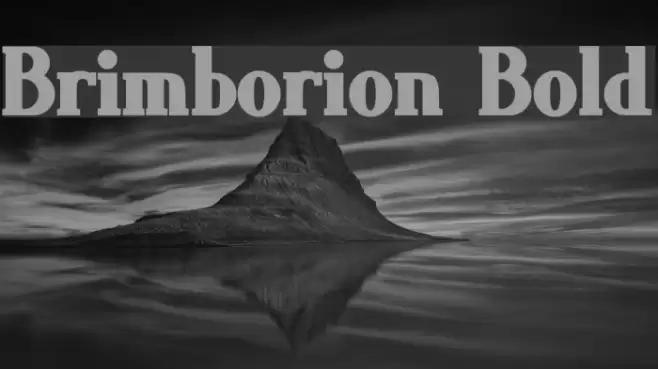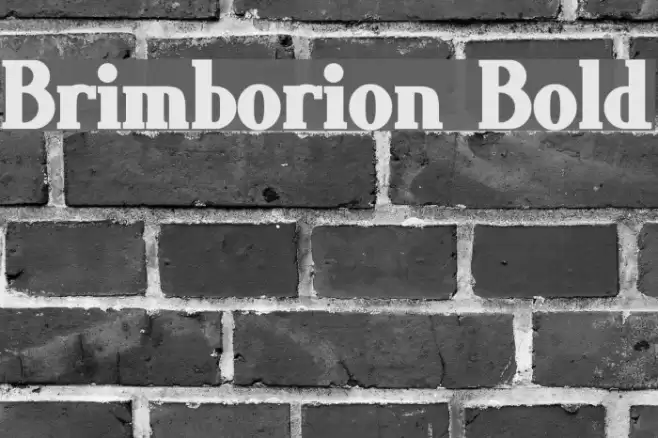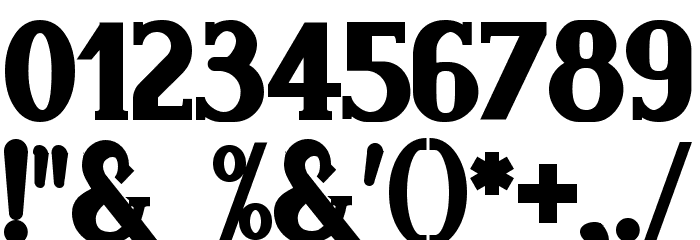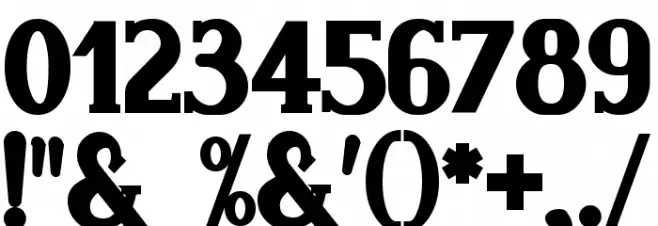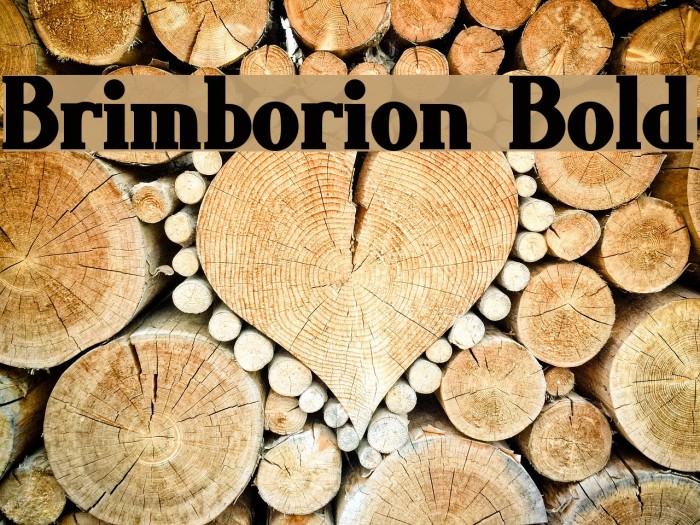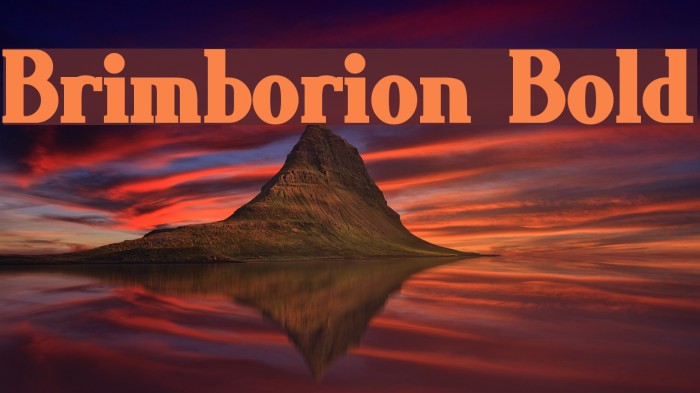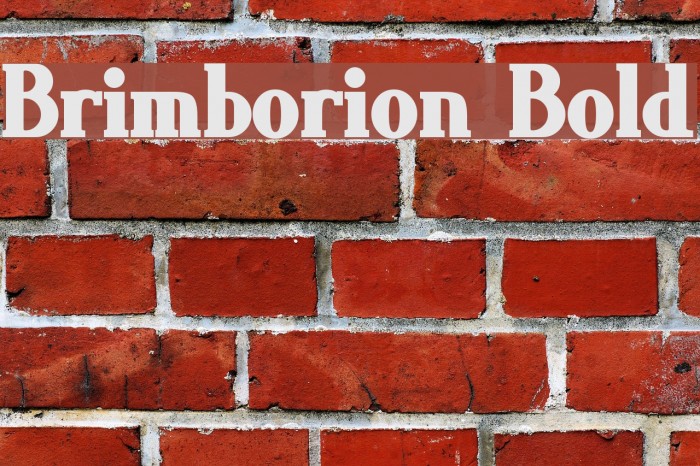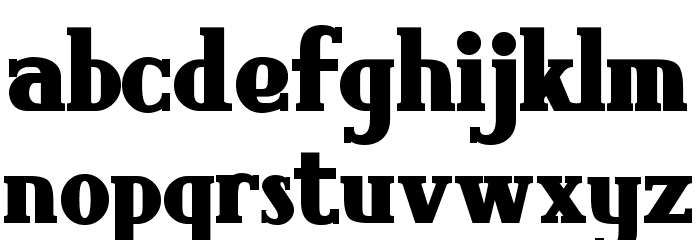
Brimborion Bold Font
Brimborion Bold Description
This font exhibits a bold and robust character with strong, thick strokes that convey a sense of authority and confidence. The uppercase letters are particularly striking, with a consistent weight that ensures readability and impact. The lowercase letters maintain a harmonious balance with the uppercase, featuring rounded edges that add a touch of softness to the overall boldness. The numerals are clear and legible, making them suitable for various applications. Special characters are well-defined, enhancing the font's versatility. The style is reminiscent of classic serif fonts, yet it carries a modern twist that makes it suitable for contemporary designs.
A bold, authoritative serif font with a modern twist, ideal for impactful designs from Uncategorized fonts.
- Proposed Projects: This font is perfect for branding projects, headlines, posters, and any design that requires a strong visual impact.